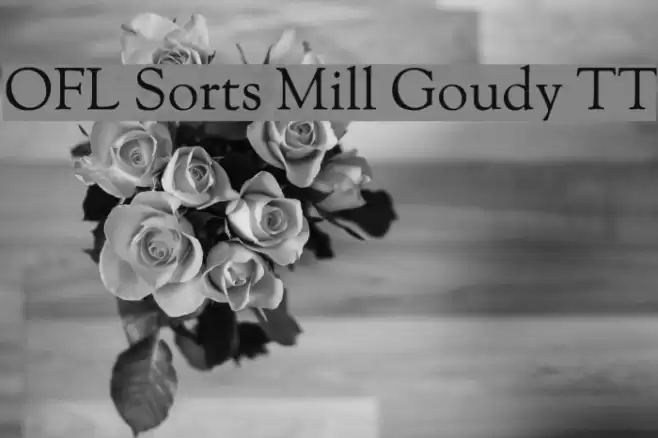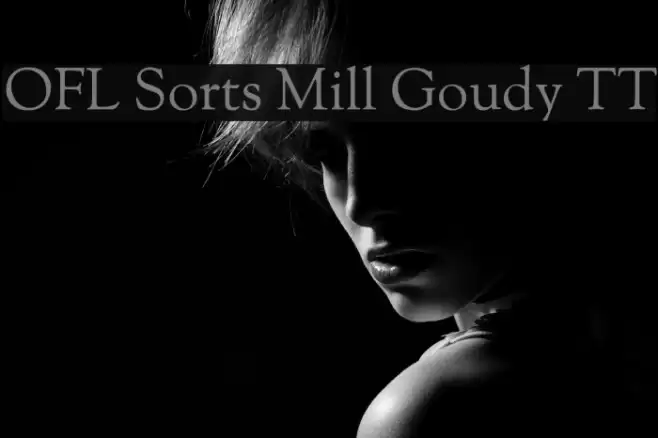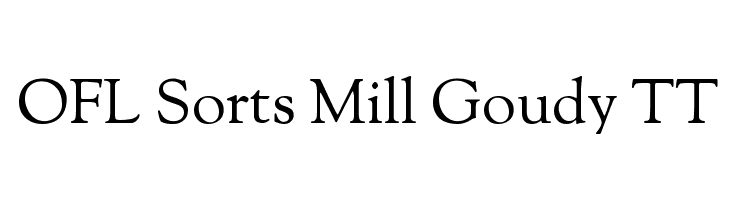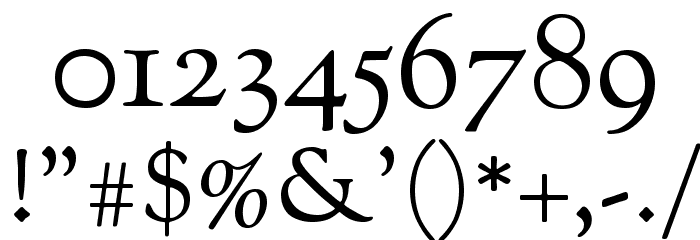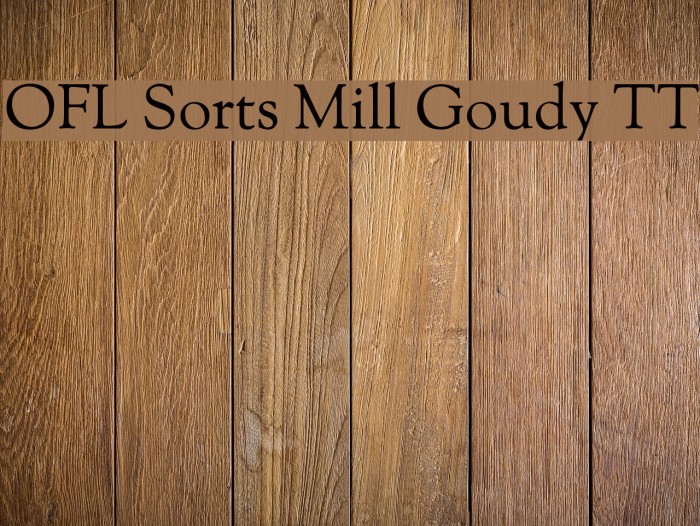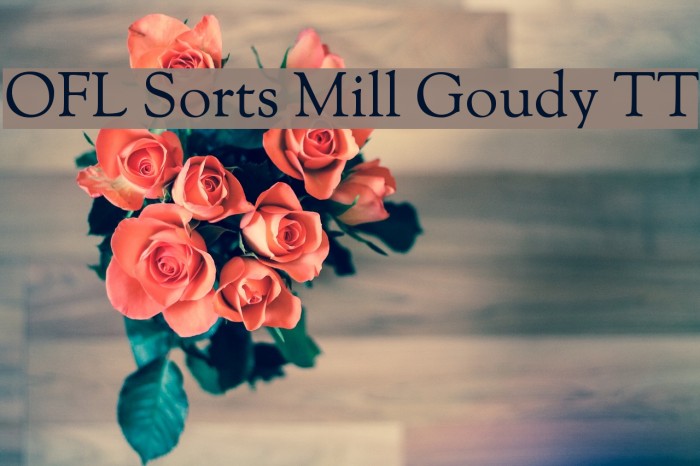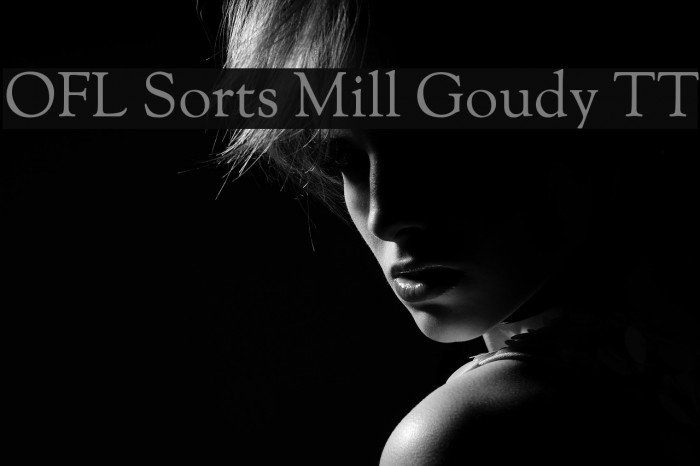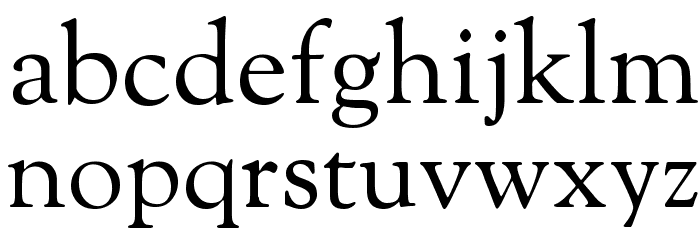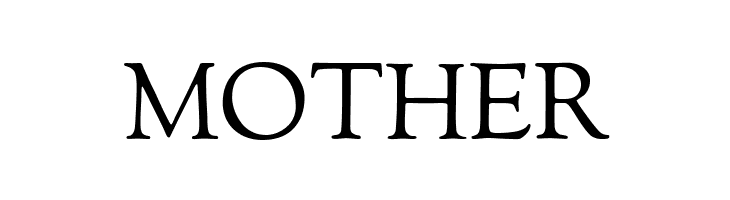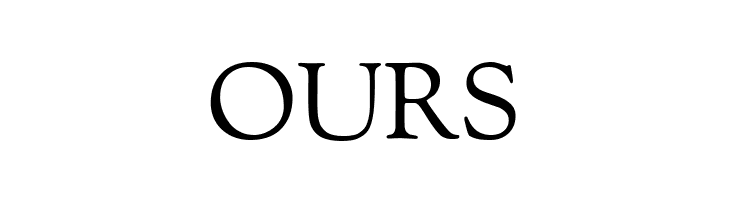
OFL Sorts Mill Goudy TT Font
OFL Sorts Mill Goudy TT Description
This font features a classic serif design with elegant and refined strokes. The characters exhibit a traditional style with moderate contrast between thick and thin lines, giving it a sophisticated and timeless appearance. The serifs are well-defined and slightly bracketed, adding to the font's readability and charm. The overall structure is balanced, with a slight inclination towards a vintage aesthetic. The numerals and special characters maintain the same classic feel, ensuring consistency across all glyphs.
A classic serif font with elegant strokes and a vintage aesthetic from Uncategorized fonts.
- Proposed Projects: Ideal for book typesetting, formal invitations, branding for luxury products, and editorial design.
- Overall Style: Classic
- Use Case: Body text, Editorial design, Branding